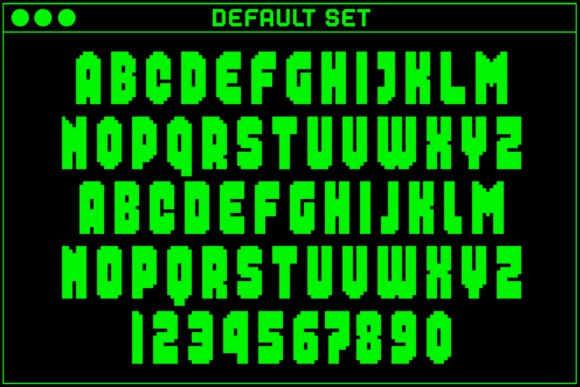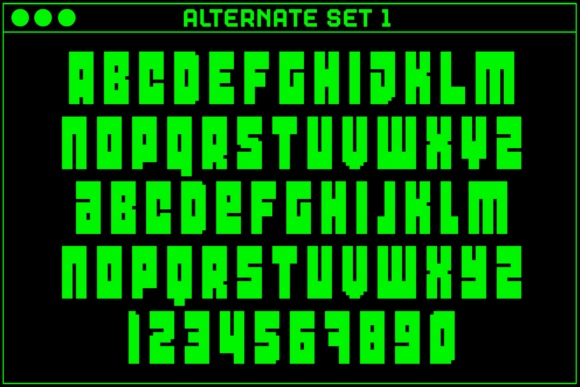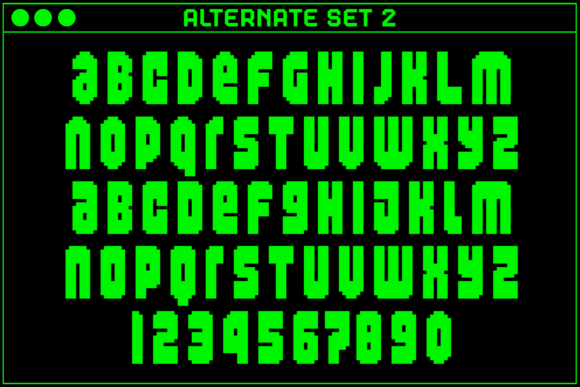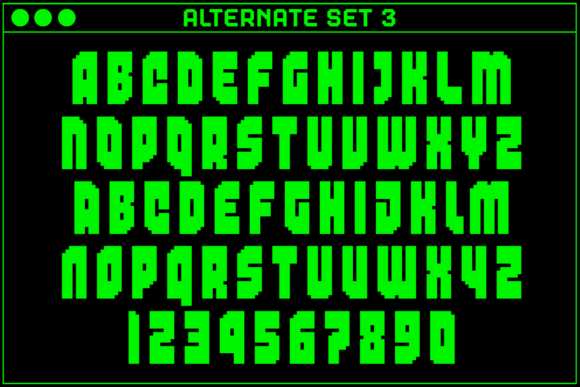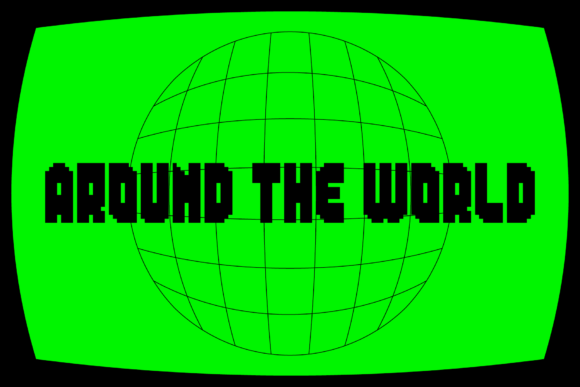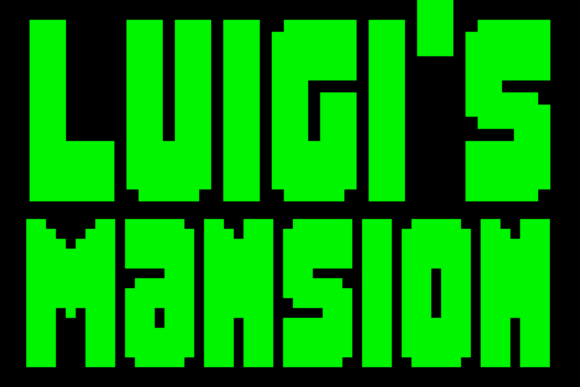
Introduction to MultiType Pixel Compact Bold Font
Meet the MultiType Pixel Compact Bold Font, a cool, uniquely shaped, pixelated display font that’s sure to add a distorted and trendy touch to your designs. This free download is a valuable design resource that’s waiting to elevate your next project. With its PUA encoded glyphs and swashes, you’ll have complete control over the look and feel of your design.
Whether you’re working on a graphic design project, creating a logo, or need a font for a high-quality print job, the MultiType Pixel Compact Bold Font is a versatile and reliable choice. Plus, with a transparent background, you can easily integrate it into any design, knowing it will always look crisp and clean.
Key Features of MultiType Pixel Compact Bold Font
- High-quality design resource for creative projects, offering a unique and bold aesthetic.
- Compact and pixel-perfect design, ideal for digital and web-based creative projects requiring a transparent background.
- Bold font style with a high level of detail, perfect for making a statement in creative projects.
- High-resolution design, suitable for use in high-resolution displays and print materials.
- MultiType Pixel Compact Bold Font is designed to be highly legible and readable in various contexts, making it an excellent choice for a wide range of creative projects.
Honest Review: MultiType Pixel Compact Bold Font
I recently stumbled upon the MultiType Pixel Compact Bold Font, and I must say it’s a fantastic design resource. The high quality of this font caught my attention immediately. It’s perfect for creative projects that require a bold, yet elegant touch.
- ✨ Clean and modern design that works well for digital products, websites, and applications.
- ✨ Offers a high level of flexibility, making it suitable for various creative projects, from logos to posters.
While this font excels in many areas, there are a few limitations. For instance:
- ⚠️ The font may not be suitable for print materials that require a lot of text, as it can be quite dense.
Overall, I’m impressed with the MultiType Pixel Compact Bold Font. It’s a high-quality design resource that can elevate any creative project. With its clean design and flexible nature, it’s definitely worth considering for your next design project.